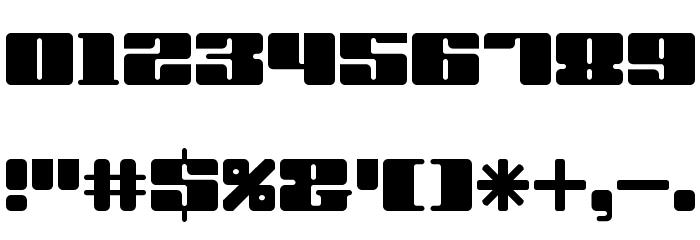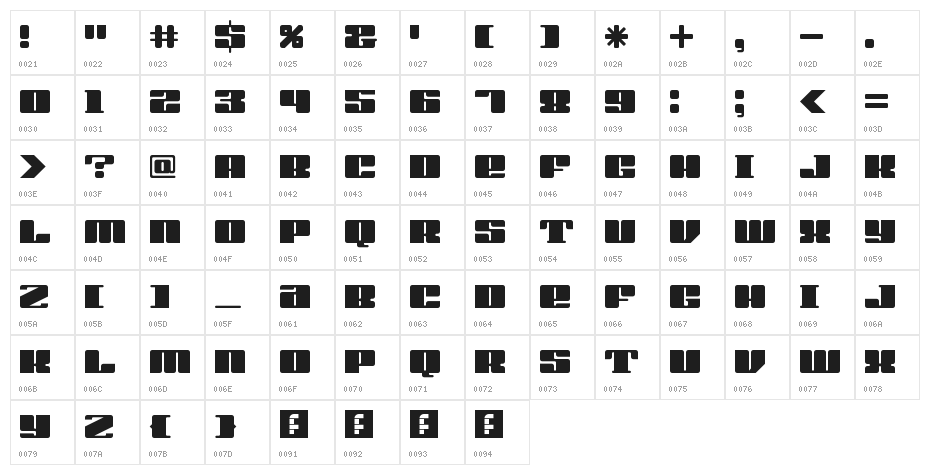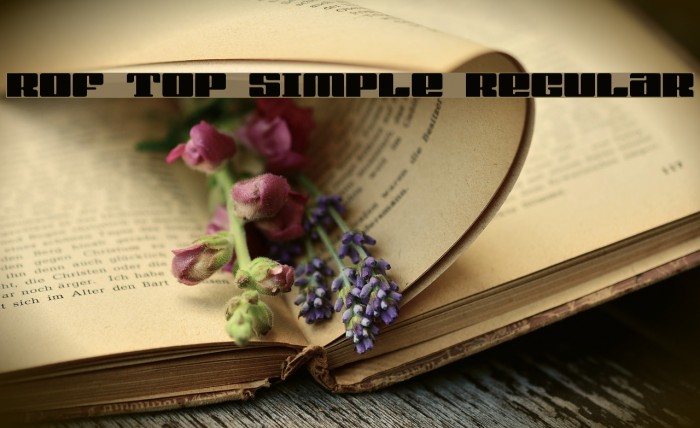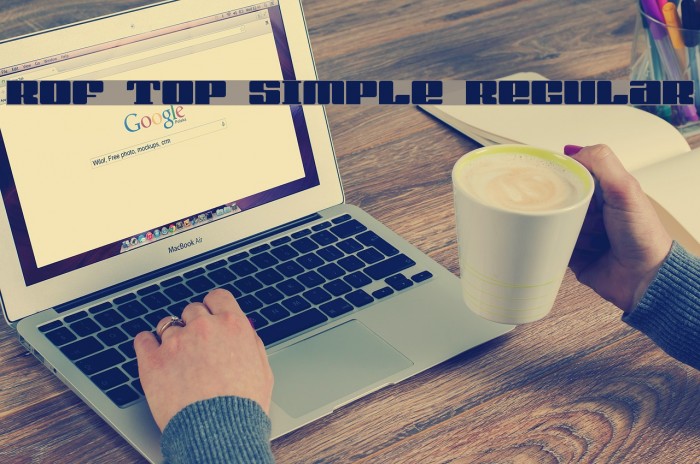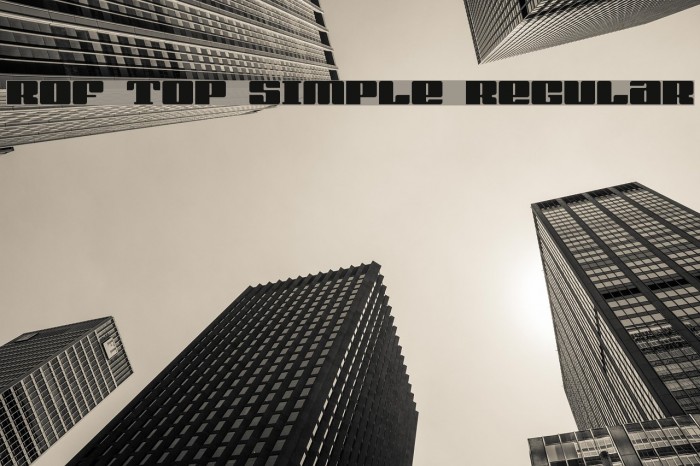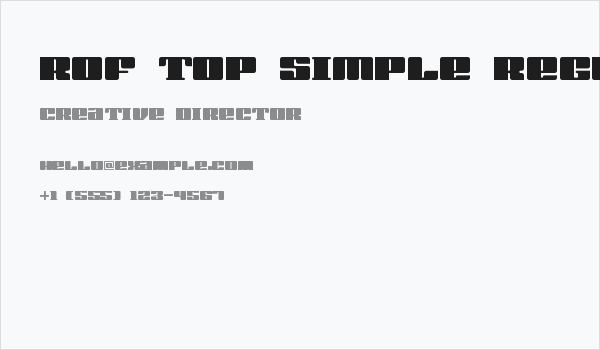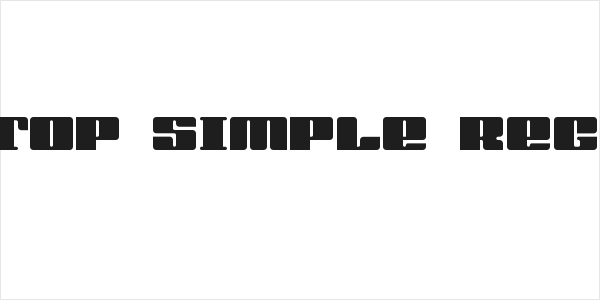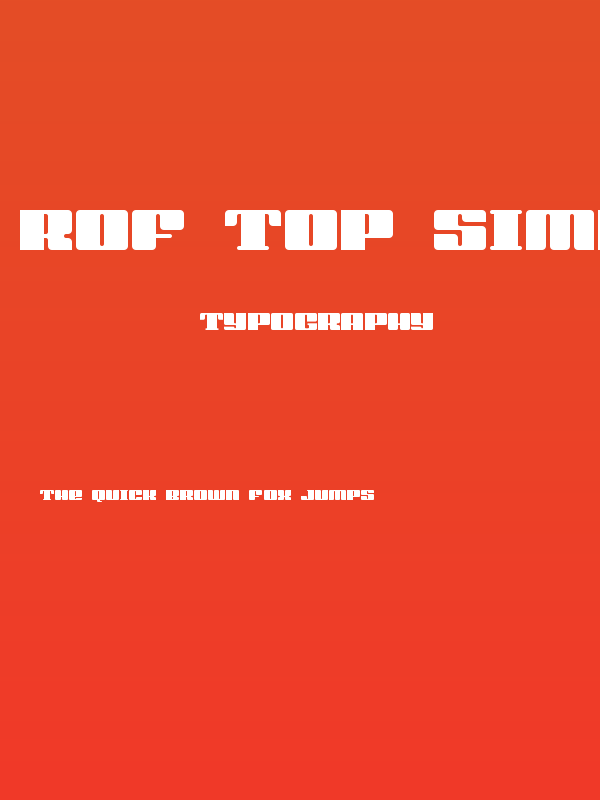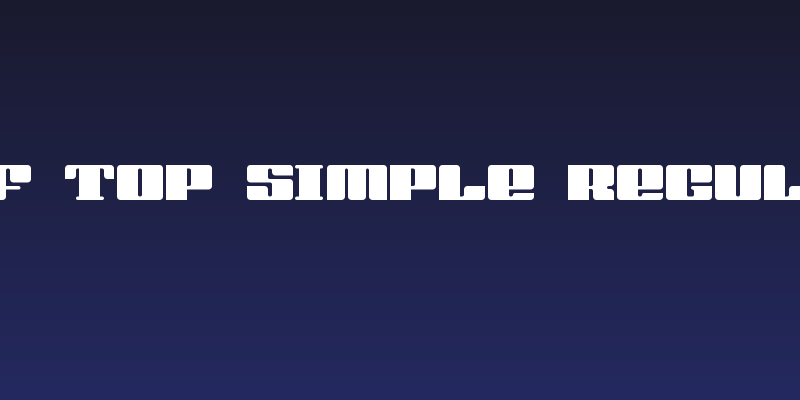
rof top simple Regular Font
rof top simple Regular Description
This font features a bold, geometric design with a strong presence. The characters are constructed with thick, block-like shapes that give it a robust and industrial feel. The uppercase letters are uniform in height, creating a cohesive and structured appearance. The lowercase letters maintain the same boldness, ensuring consistency across the typeface. Numbers and special characters are equally bold and prominent, making them stand out effectively. The overall style is modern and impactful, suitable for making a strong visual statement.
| Proposed Projects | Ideal for branding, posters, headlines, and any project requiring a bold, impactful typeface. |